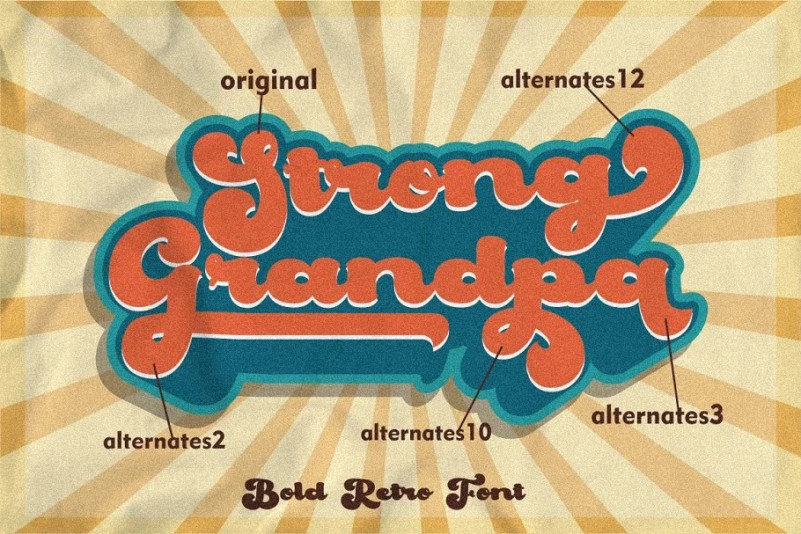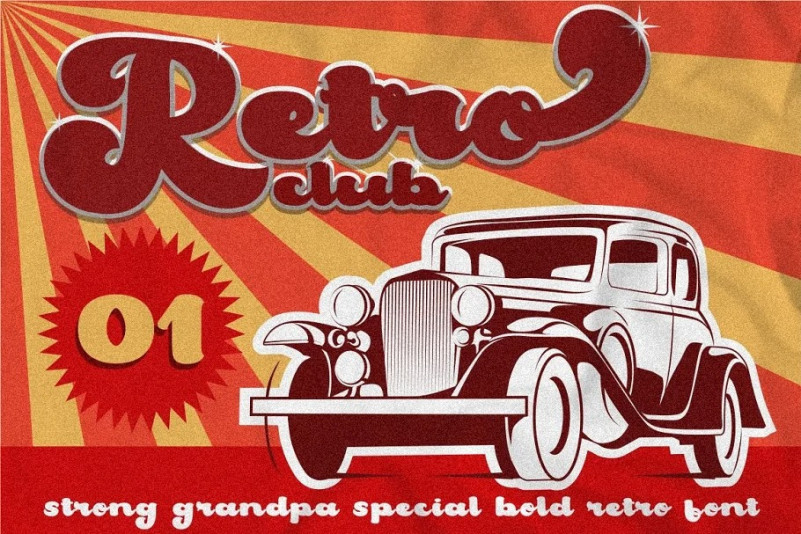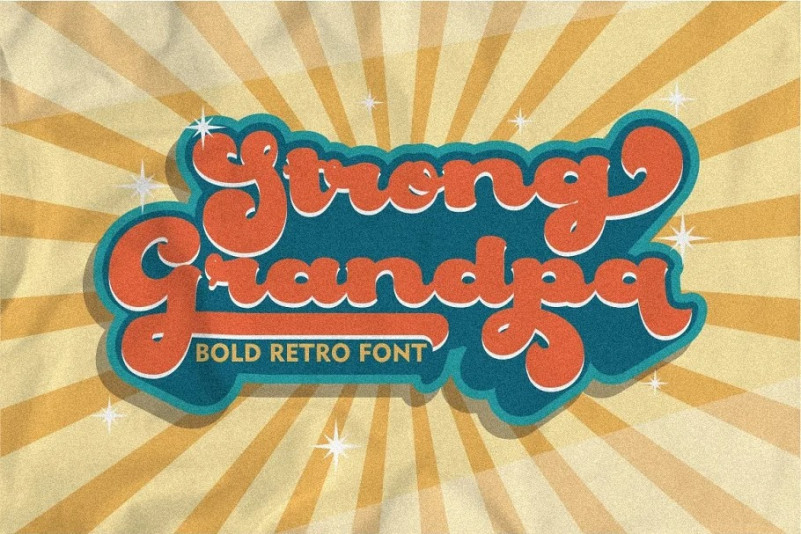
Strong Grandpa Bold Script Font
This is a bold script typeface created by PutraCetol Studio with vintage aesthetic. Inspired from retro typography and lettering in the 60’s and 70’s combine with bold typography style. it’s great for any project that needs a retro vibe or vintage touch. Strong Grandpa is perfect for vintage and retro design, badge, logos,t-shirt, poster, branding, title, heading, packaging, signage, book coverand so much more!